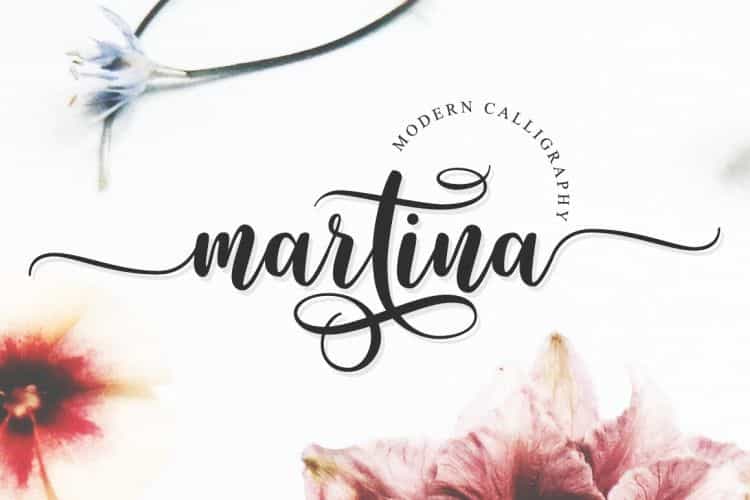
Martina is a sweet and modern calligraphy font. Draw inspiration from its modern coolnes! It’s created and posted by Adhi Nugraha. These fonts are clean and gorgeous in several design necessities, such as Invitations, thank you cards, quotes, greeting cards, T-shirt designs, product labels, brand boards, logos, business cards, and a lot more.